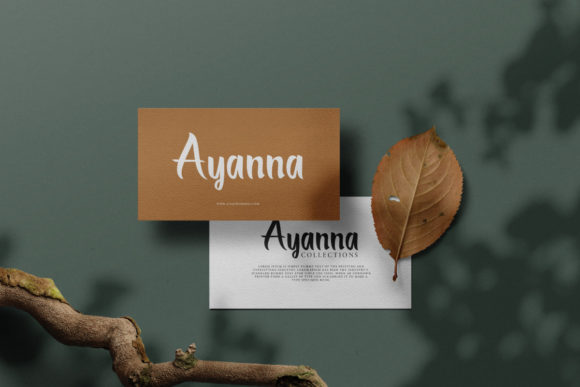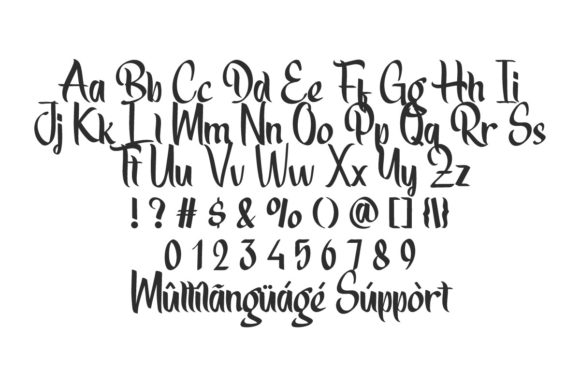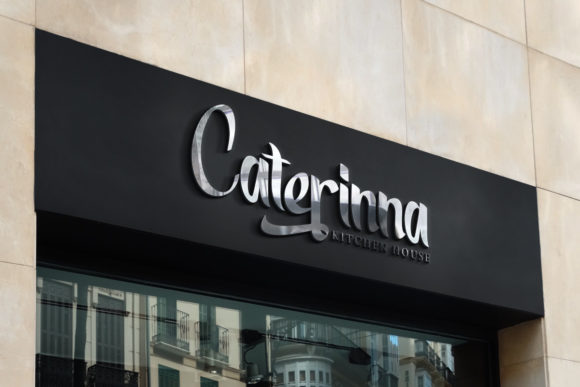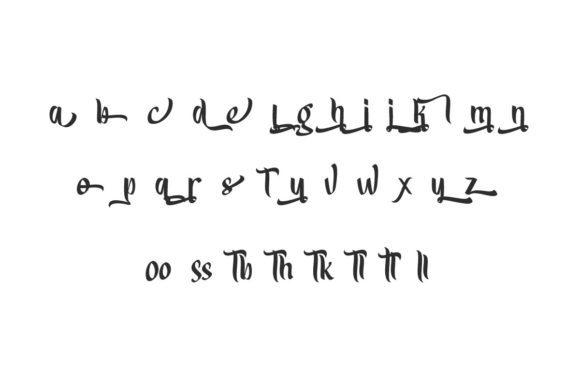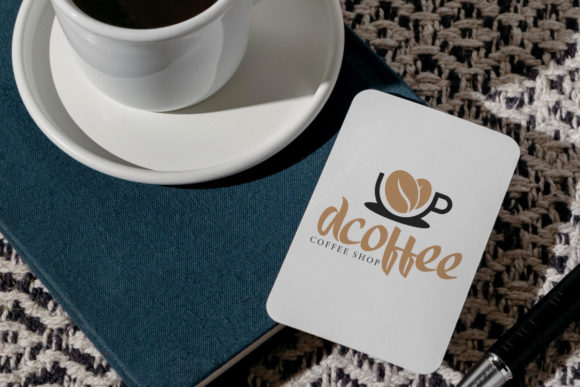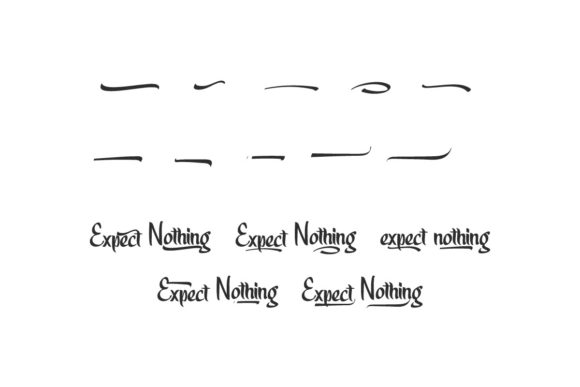
Introduction to Expect Nothing Font
Have you ever been working on a creative project, pouring your heart and soul into it, only to realize that the right font was missing to tie everything together? I’m sure many of us can relate to that feeling. But what if I told you that there’s a font that can elevate your design to the next level, adding a touch of elegance and sophistication to your work?
Meet the Expect Nothing Font, a stunning handwritten font that’s perfect for making your designs stand out. With its beautiful, curvy lines, this font is ideal for product packaging, branding projects, magazine covers, and even social media. Plus, its PUA encoding makes it easy to access all the glyphs and swashes you need, ensuring that your design is flawless.
As a valuable resource for designers, the Expect Nothing Font offers a high-quality solution for any creative project. Whether you’re working on a free download or a paid design, this font is sure to impress. And with its versatility, you can use it on a transparent background or as a bold statement piece – the possibilities are endless!
Key Features of Expect Nothing Font
- High-Quality Design Resource: Expect Nothing Font is a premium design resource ideal for creative projects, offering a unique and elegant style.
- Transparent Background: This font features a transparent background, making it perfect for designers who want to achieve a seamless look in their designs.
- High Resolution: Expect Nothing Font is designed at a high resolution of 300 DPI, making it perfect for printing and large-scale designs.
- Unique Characteristics: This font features a unique blend of modern and elegant styles, with subtle nuances that make it stand out from other fonts in its class.
- Perfect for Logos and Branding: Expect Nothing Font is ideal for creating logos, branding materials, and other design elements that require a touch of sophistication and elegance.
Honest Review: Expect Nothing Font
I recently stumbled upon the Expect Nothing Font, a free download that caught my attention. As a designer, I’m always on the lookout for high-quality design resources that can elevate my creative projects. The Expect Nothing Font is a beautiful addition to any design arsenal.
- ✨ High-quality design that’s perfect for titles and headings
- ✨ Comes in a variety of weights and styles, making it versatile for different creative projects
- ✨ Suitable for digital and print design, including logos, branding materials, and more
- ⚠️ Not ideal for body text, as it can be difficult to read in certain font sizes
- ⚠️ Some users may find the font a bit too bold or dramatic for certain design projects
Overall, I’m impressed with the Expect Nothing Font. It’s a great addition to any designer’s toolkit, especially for projects that require a bold and eye-catching title or heading. While it may not be suitable for every creative project, it’s definitely a high-quality design resource worth considering.
Expect Nothing Font
The Expect Nothing Font is a high-quality design resource that can elevate your creative project to the next level. This font is available for free download and features a transparent background, making it perfect for use in various design applications.
The Expect Nothing Font is perfect for use in a variety of creative projects, including:
1. Social media graphics
2. Marketing materials
3. Branding materials